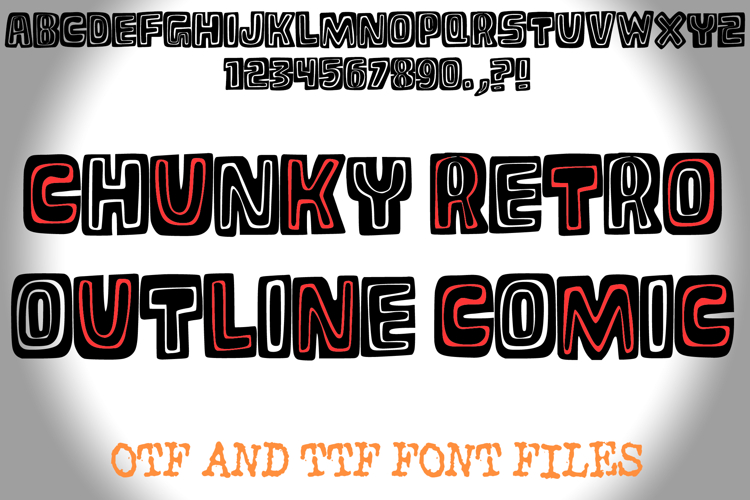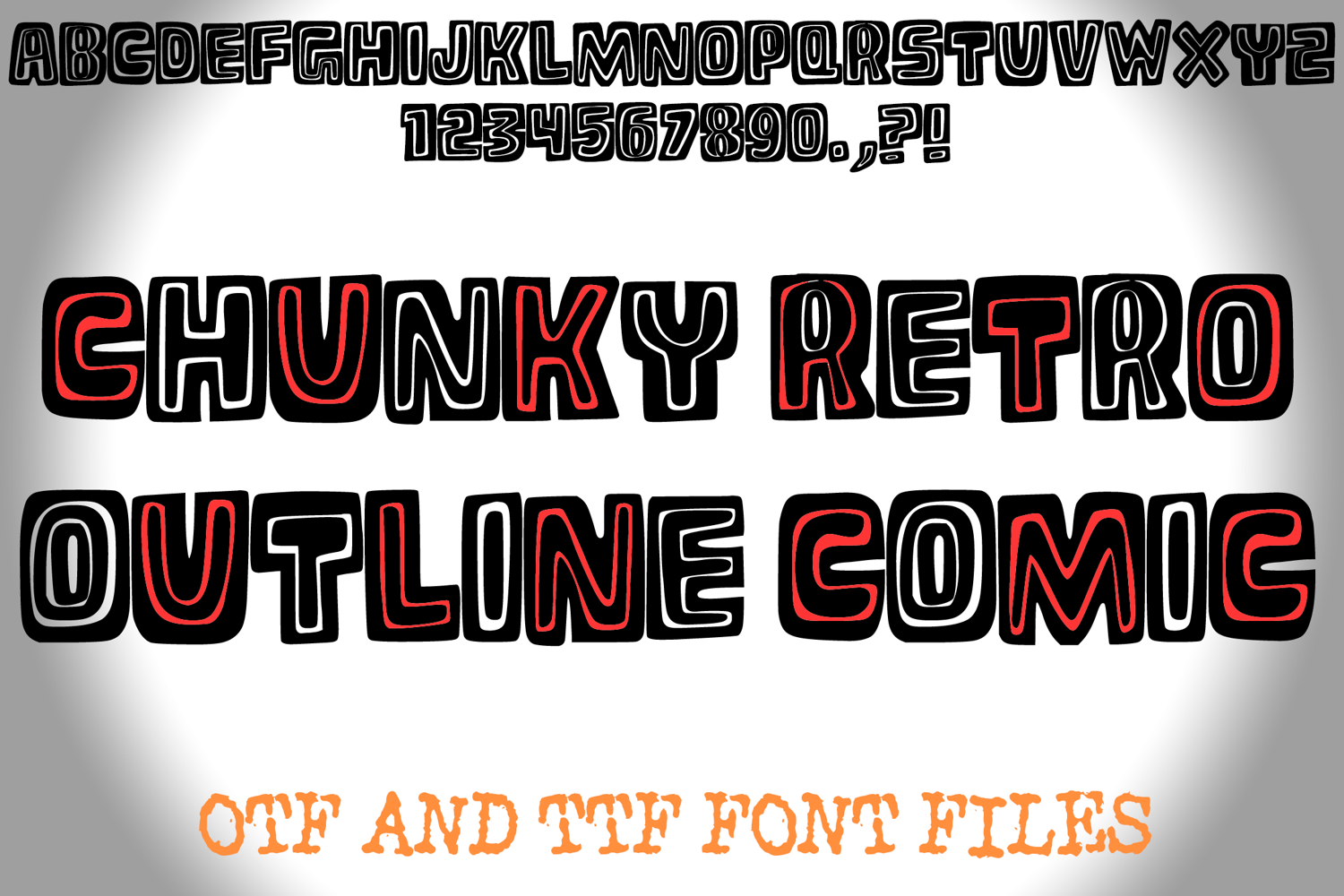
Chunky Retro Outline Comic Lettering ABC Font Typography OTF
Introducing the Chunky Retro Outline Comic Font – a bold, playful, and eye-catching typeface that combines retro charm with comic-style fun. With its thick block letters, outlined shapes, and funky hand-drawn vibe, this font is perfect for projects that need a loud and cheerful statement.
The Chunky Retro Outline Comic Font includes uppercase letters, numbers, and punctuation, all designed with a bold outlined look that makes your text pop. It’s great for retro posters, comic book titles, children’s designs, logos, invitations, stickers, t-shirts, crafting projects, and digital artwork.
Bring bold energy and nostalgic fun to your next project with the Chunky Retro Outline Comic Font – the perfect blend of retro vibes and playful creativity!